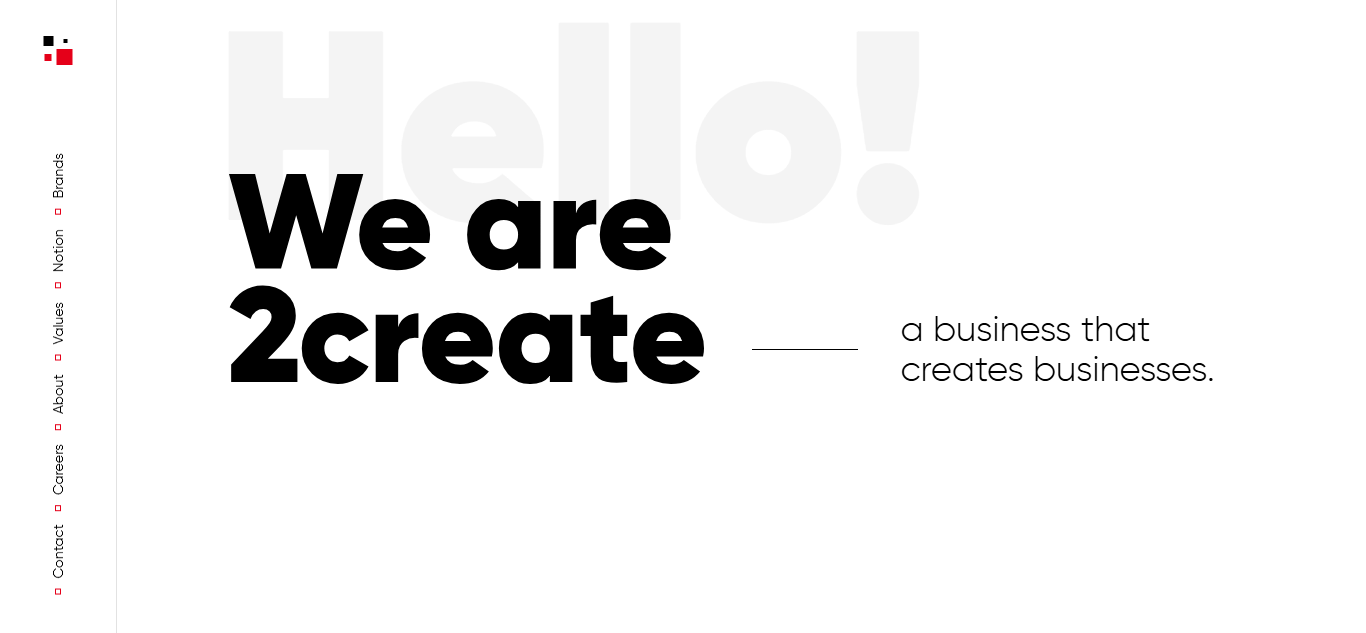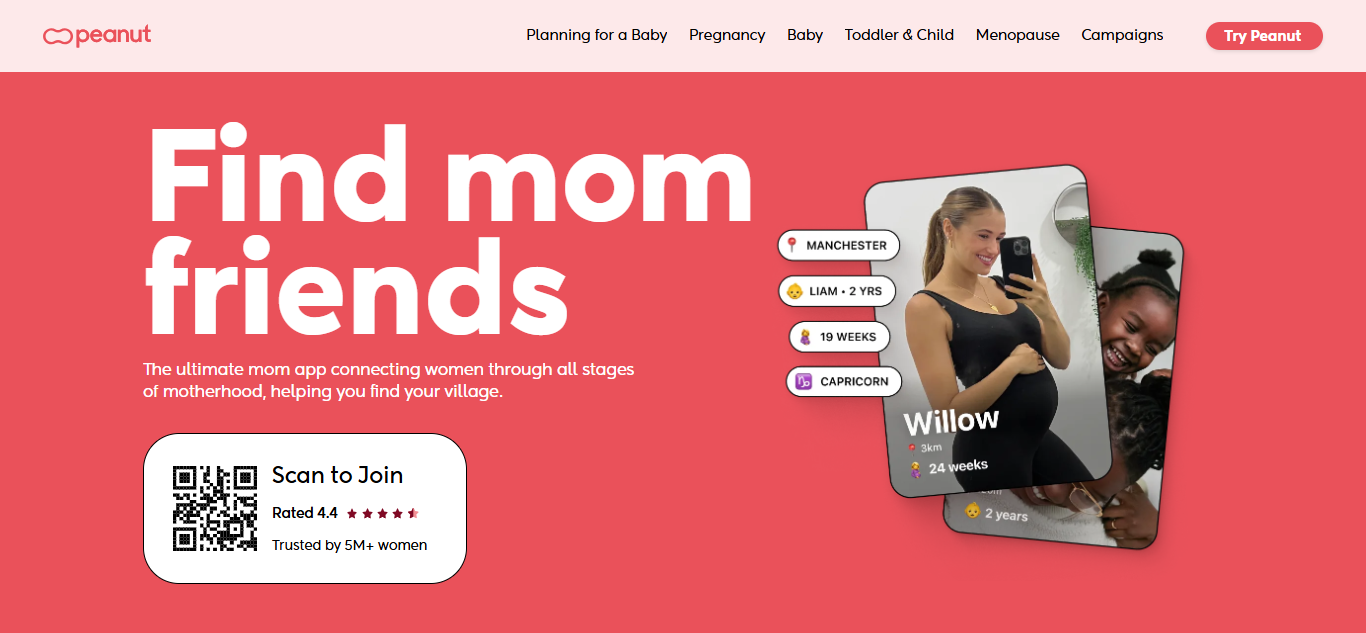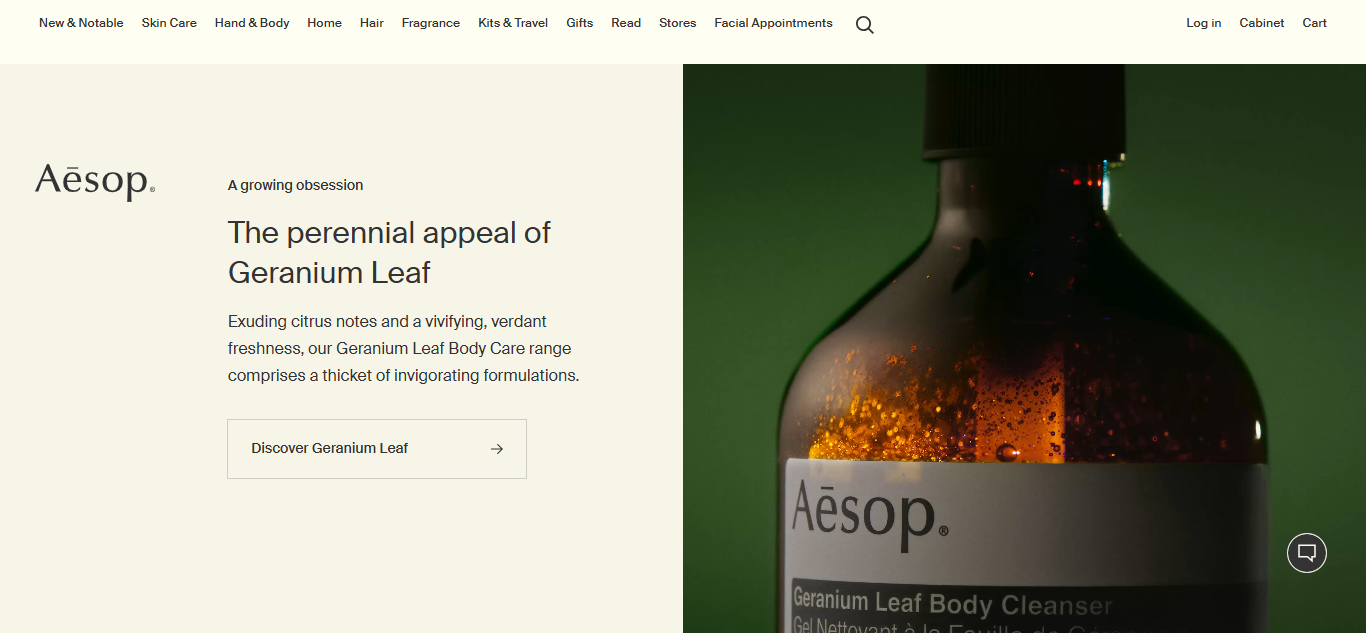
Principle of Minimalist UI Design: 7 Key Guidelines
Around 84.6% of users prefer a clean interface over an overcrowded one. This is not just a matter of decoration. A clean, minimalistic UI improves usability, speeds up performance, and makes navigation more intuitive. By embracing the principle of minimalist UI design, you can deliver the best visuals and performance for your design.
Key Takeaways:
• The core of minimalist UI design is simplicity with purpose. This can be achieved by using whitespace effectively, removing non-essential elements, and limiting both typography and color palette.
• Ensure UI design has a clear visual hierarchy and predictable navigation that guides users through the interface.
• Bold typography or vibrant visuals can be powerful, as long as they serve a clear purpose and don’t disrupt the overall simplicity.
7 Principles of Minimalist UI Design for Designers
Let’s explore seven fundamentals of minimalist UI design that every designer should understand and apply.
1. Use Whitespace Strategically
Applying whitespace or negative space means making your design look “empty” to create visual breathing room. This intentional “emptiness” reduces cognitive load and helps users focus on key elements.
Furthermore, this principle of minimalist UI design also improves layout structure by clearly separating content and guiding users toward your intended actions.
the homepage of 2Create | source: 2create.io
For example, 2Create’s website showcases excellent whitespace usage. It highlights essential content, like mission, portfolio, and services, that makes the site easy to scan and visually trustworthy.
2. Guide Attention with Visual Hierarchy
A strong visual hierarchy is essential in any minimalist user interface. An effective hierarchy ensures users instantly recognize what’s important and where to look next. These are some key points in optimizing visual hierarchy.
• Scale: Larger elements like headings naturally draw more attention. Use different sizes to signal importance and create a logical reading flow.
• Contrast: Elements with stronger contrast are more visible. These elements serve best as CTAs or alerts. Use bold colors, heavier fonts, or brighter tones to pull the user’s attention where it matters most.
• Spacing: Proximity indicates relationships. By grouping related items or separating prominent elements, you can lead the eye smoothly through the interface.
3. Remove Unnecessary Visual Distractions
One key principle of minimalist UI design is to strip away anything that doesn’t serve a function. That means eliminating visual effects, gradients, flashy animations, or excessive icons that don’t add value. Distractions increase cognitive load and slow users down. Instead, focus on clarity and purpose.
Consider making a flat design. This design style incorporates clean typography, 2D illustrations, and subtle color to support intuitive interaction without overloading the user.
4. Limit Your Color Palette
Too many colors can overwhelm and dilute your message. A limited palette creates visual harmony and strengthens your brand identity. It also improves contrast for better readability and directs attention to CTAs.
Peanut App’s website | Source: peanut-app.io
Minimalist UI design examples like the Peanut app show how this principle is executed properly. Its site establishes a good monochromatic palette of soft pink and red, conveying femininity and warmth as a safe space for women. Meanwhile, neutral blacks and whites maintain balance and clarity across the interface.
5. Prioritize Readable Typography
In the principle of minimalist UI design, typography takes on greater importance, since fewer visuals mean text must work harder to inform and engage. Typography serves two key roles: delivering clear messages and capturing attention.
Body text, labels, and notifications should use legible fonts. It typically uses sans-serif or serif fonts for optimal readability across devices. Meanwhile, headings, hero text, or logos can use expressive typefaces to create visual impact, but they must be used sparingly and intentionally.
For consistency, limit your design to no more than two font families and avoid excessive weights or styles.
6. Simplify Layouts and Navigation Flow
A simple, well-structured layout is the core of any effective minimalism UI. Use a grid system to keep elements aligned and organized.
Additionally, limit the number of choices users must make. Too many options can increase cognitive load and disrupt the experience. Group related content, remove redundancies, and always consider the user’s flow.
Design intuitive navigation with familiar patterns, like the Z-pattern or F-pattern, to guide users smoothly through your interface and keep interactions effortless.